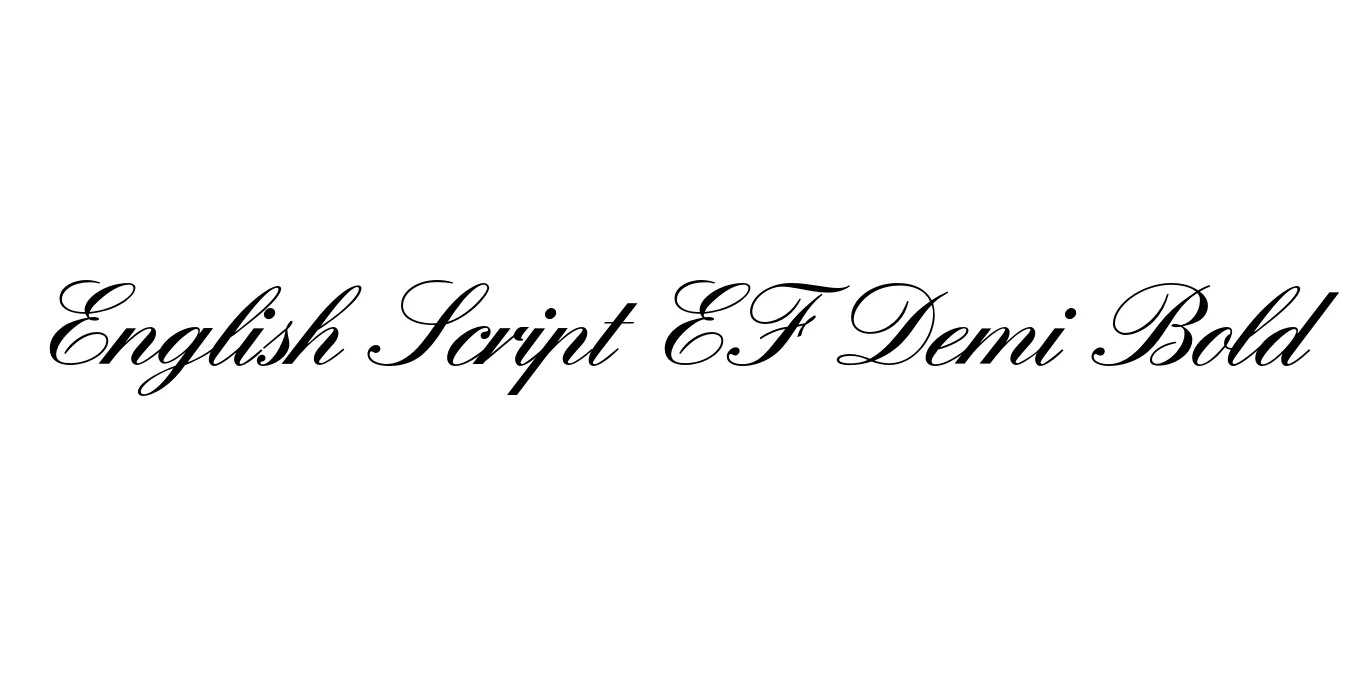
English Script EF Demi Bold
Designed by Elsner+Flake
| Category | Script / Formal Calligraphy |
| Designer | Elsner+Flake |
English Script EF Demi Bold is a quintessential representation of the formal Copperplate or English Roundhand calligraphic style. This digital interpretation, part of the Elsner+Flake library, draws heavy inspiration from the 18th-century handwriting manuals popularized by masters like George Bickham. The 'Demi Bold' weight is specifically engineered to provide a sturdier visual presence than standard light scripts, striking a perfect balance between the delicate hairlines and the robust, weighted downstrokes that characterize classical penmanship.
The typeface is defined by its ornate flourishes, dramatic loops, and a precise slant that exudes a sense of timeless luxury and aristocratic sophistication. It serves as a digital bridge to the era of hand-engraved copper plates, offering modern designers the ability to evoke heritage and tradition. Because of its meticulous kerning and high-contrast strokes, it remains a favorite for professional applications where elegance and high-end aesthetics are paramount, ensuring that every character connects with fluid grace.
English Script EF Demi Bold Best Uses
Perfect for invitations, save-the-dates, and formal envelopes that require a classic, romantic touch.
Ideal for high-end product packaging, perfume labels, and boutique logos looking for a heritage feel.
Excellent for diplomas, awards, and legal documents to convey a sense of authority and tradition.
Well-suited for decorative headings in lifestyle, fashion, and history-focused magazines.